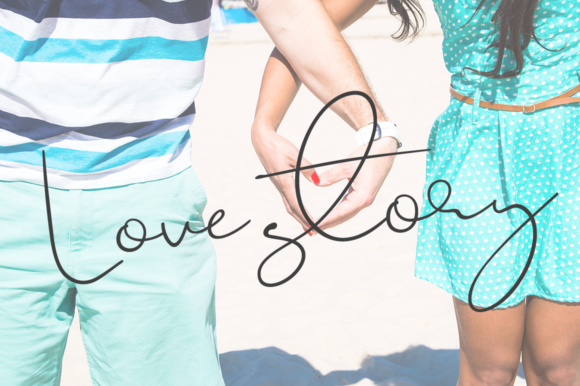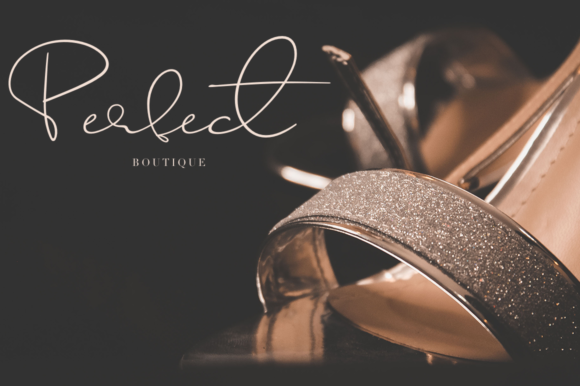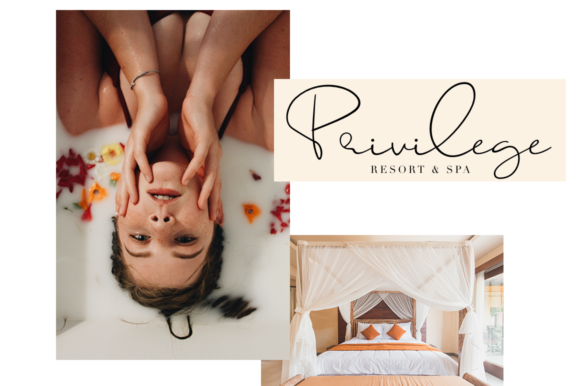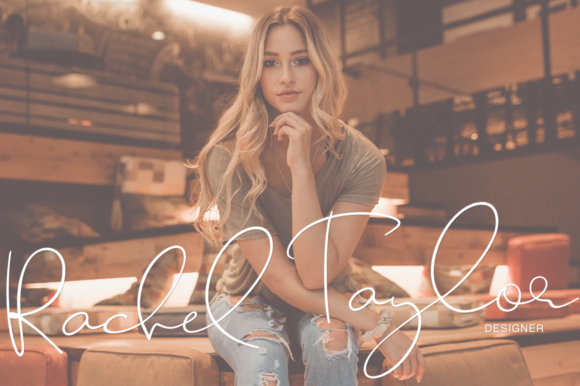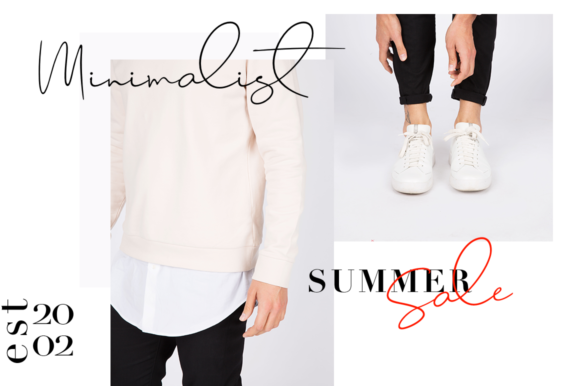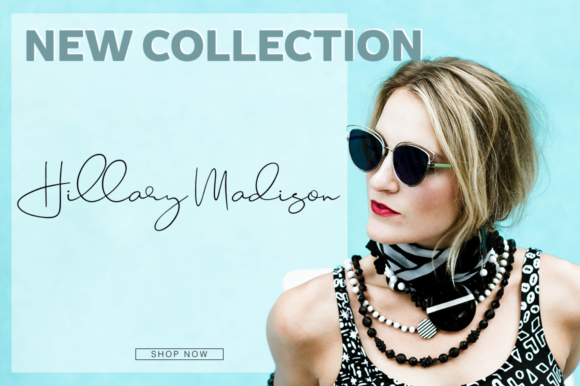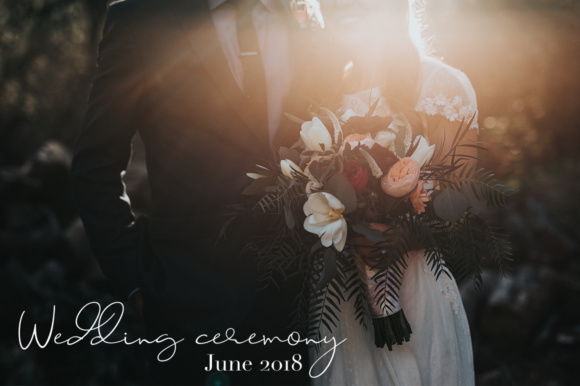
Jackson Font
About Jackson Font
The Jackson Script is a fresh, handmade calligraphic-style font.
It’s ideal for branding and decorating any projects. It’s perfect for wedding invites but can also used for personal branding, such as a blog or a boutique.